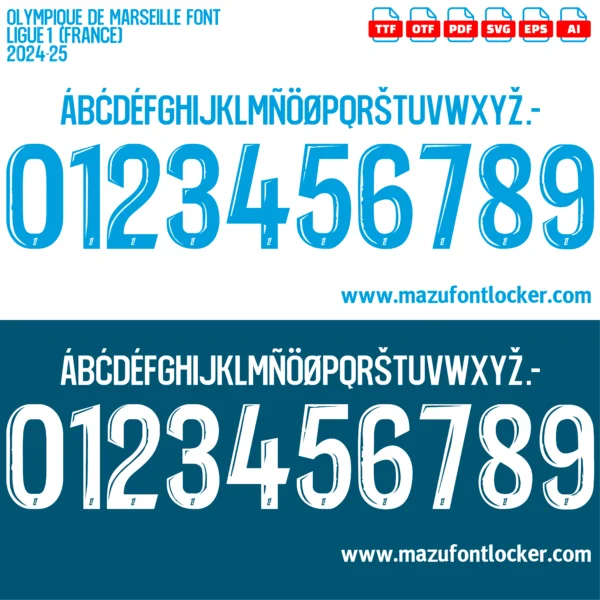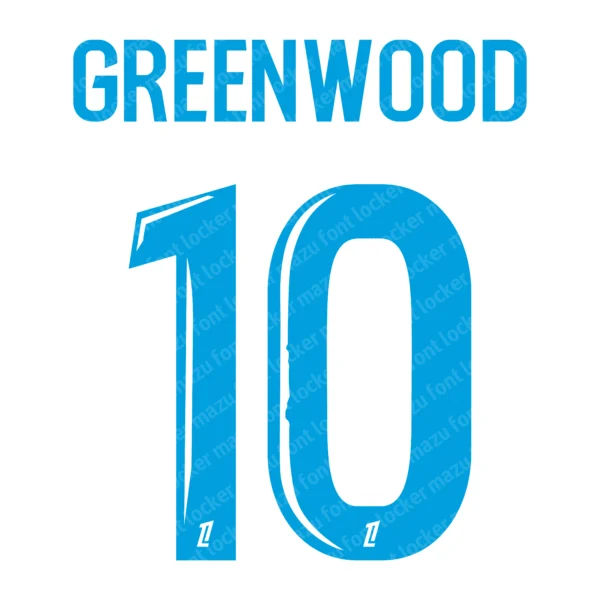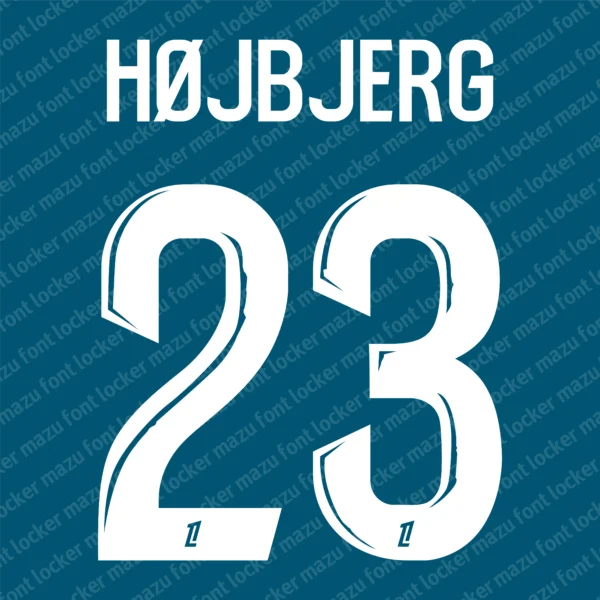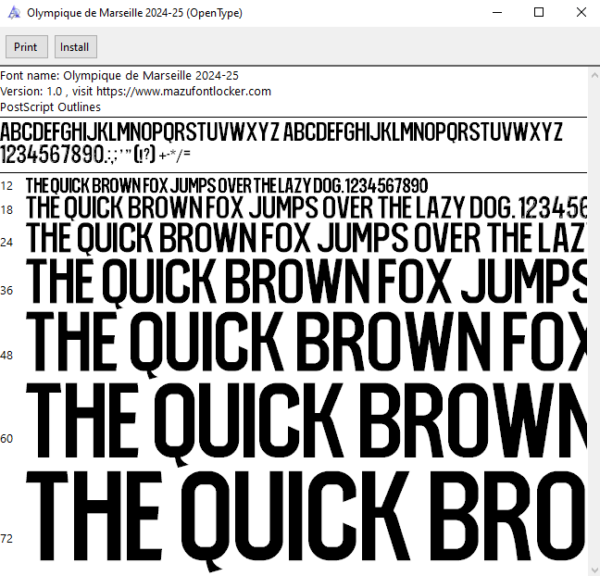
Olympique Marseille Ligue 1 2024-2025 Font Vector – Stunning Phocéens Masterpiece
This font captures the commanding, steel-sharp, lightning-strike, and precision-engineered lettering that perfectly embodies Olympique Marseille’s iconic club identity, proud French & Marseille heritage, never-back-down mentality, and raw football power — delivering unmatched authenticity, premium quality, explosive energy, and elite Ligue 1 & Champions League dominance for professional jersey mockups, dynamic football graphics, premium sports branding, passionate fan creations, and high-end design projects.
Olympique Marseille Ligue 1 2024-2025 Font Vector – Iconic Light Blue & White Typeface
The Olympique Marseille Ligue 1 2024-2025 Font Vector is a premium typeface that accurately recreates the official match lettering worn by Olympique de Marseille during the 2024-2025 Ligue 1 season. This high-quality vector font kit captures the bold, clean, and instantly recognizable typography that perfectly complements the club’s iconic light blue and white identity.
Designed for professional designers, football enthusiasts, and passionate Olympique Marseille supporters, the Olympique Marseille Ligue 1 2024-2025 Font Vector delivers exceptional authenticity for creating realistic jersey mockups, football merchandise, social media graphics, match posters, and custom fan artwork. Every character has been carefully recreated to match the powerful and precise visual style of one of France’s most successful and historic football clubs.
This font stands out thanks to its precise vector construction and authentic club styling. Every letter and numeral has been meticulously recreated to match the official shirt lettering used throughout the 2024-2025 Ligue 1, Coupe de France, and European campaigns. Whether you’re producing professional kit templates or creating eye-catching football content, the Olympique Marseille Ligue 1 2024-2025 Font Vector delivers a genuine match-ready appearance.
The lettering featured in the Olympique Marseille Ligue 1 2024-2025 Font Vector combines clean geometric lines with powerful modern proportions. The result is a premium and highly readable typeface that reflects Olympique Marseille’s ambition, Provençal pride, and passionate global fanbase during the 2024-2025 season.
- Complete uppercase A–Z alphabet and numbers 0–9 in authentic Olympique Marseille 2024-2025 style